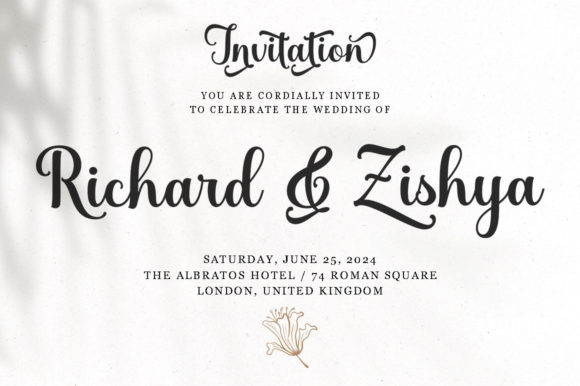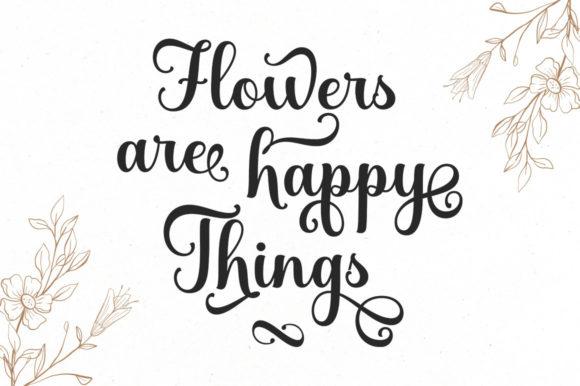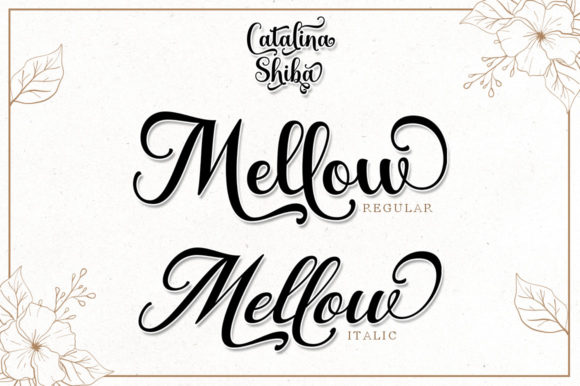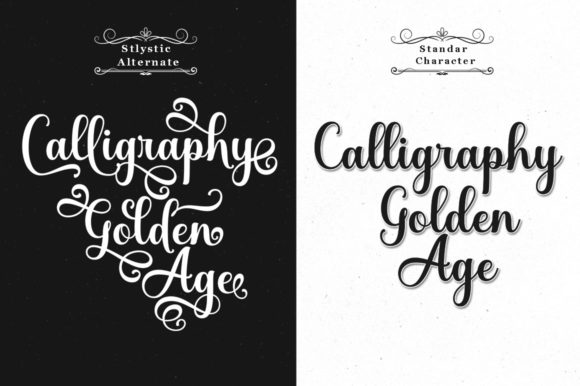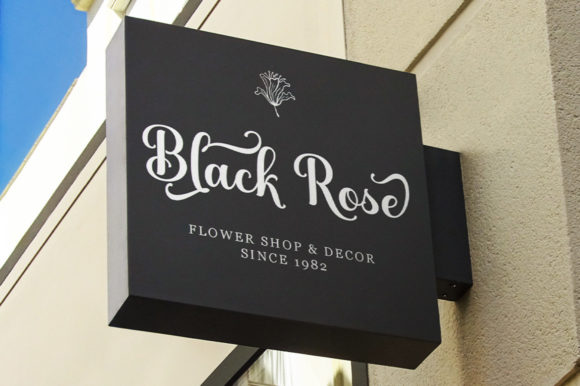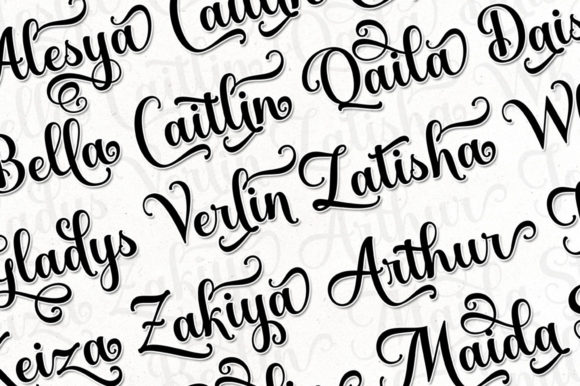
Discover the Elegance of Catalina Shiba Font
Have you ever stumbled upon a design that sparks your creativity and sets your imagination ablaze? That’s exactly what happens when you lay eyes on the Catalina Shiba Font. Its delicate and elegant handwritten style is a masterpiece that will make you fall in love at first sight.
Designed to make a statement, the Catalina Shiba Font is a versatile and sophisticated choice for designers looking to elevate their designs to the next level. With its well-balanced letters and PUA encoded glyphs, this font offers endless possibilities for creating spectacular designs. Whether you’re working on a branding project, a wedding invitation, or a social media campaign, the Catalina Shiba Font is the perfect companion to help you bring your vision to life.
- Unique Characteristics: A handwritten, brush script font with a feminine touch, suitable for various design projects such as invitations, greeting cards, and more
Catalina Shiba Font Review
As a designer, I was excited to dive into the Catalina Shiba Font and see what it had to offer. Here’s my honest review:
- The Catalina Shiba Font has a unique and playful vibe that’s perfect for creative projects, such as children’s books, magazines, or social media graphics.
- The font’s irregularities and imperfections give it a hand-drawn feel that’s both charming and memorable.
- The font family includes a variety of weights and styles, making it easy to find the perfect combination for your design.
- The font may not be suitable for formal or professional projects, as its playful nature may come across as unprofessional.
- The font’s irregularities can sometimes make it difficult to read, especially at smaller font sizes.
- The font family is not as extensive as some other popular font families, which may limit its versatility.
Overall, I think the Catalina Shiba Font is a great choice for designers looking to add some personality to their projects. While it may have some limitations, its unique charm and playfulness make it a standout font that’s sure to grab attention.
Some tips for getting the most out of the Catalina Shiba Font include:
– Using it for titles and headings to add a touch of elegance and sophistication.
– Pairing it with other fonts to create a unique and eye-catching combination.
– Using it for invitations, menus, and other materials where a high-end feel is desired.
– Experimenting with different font sizes and styles to create visual interest.